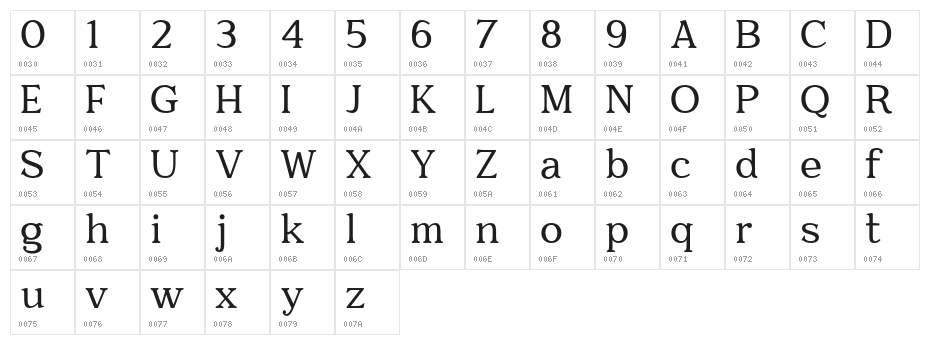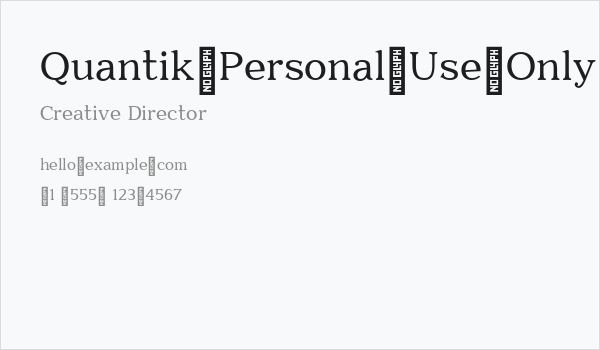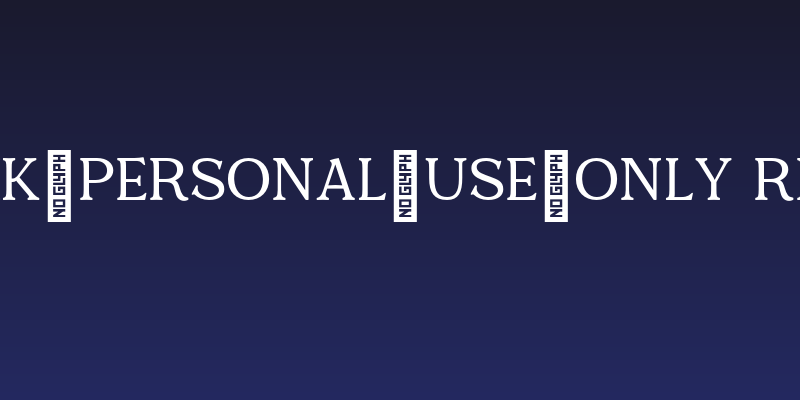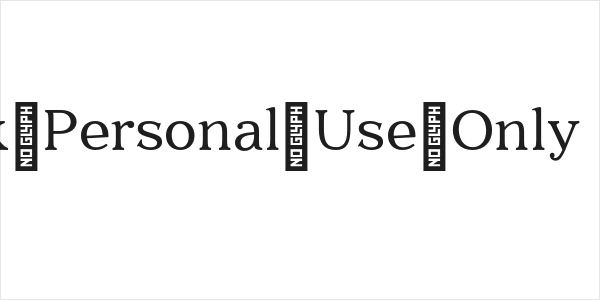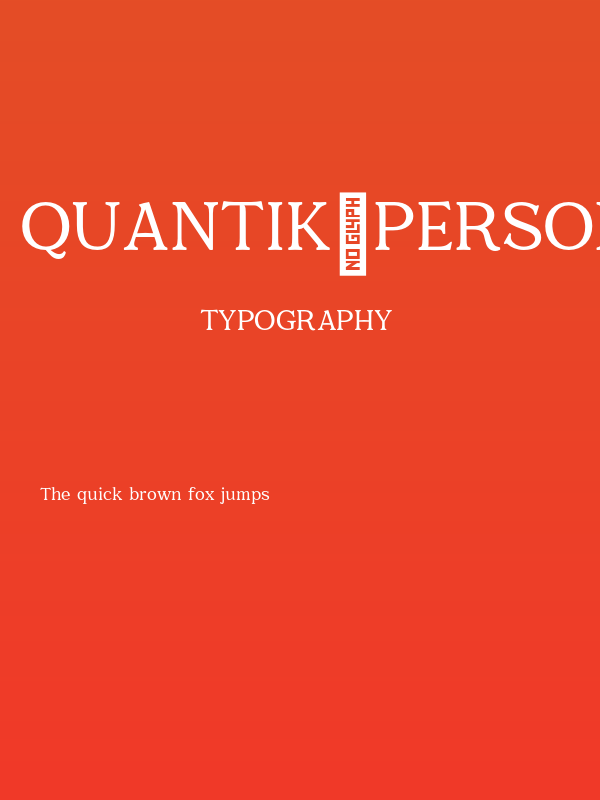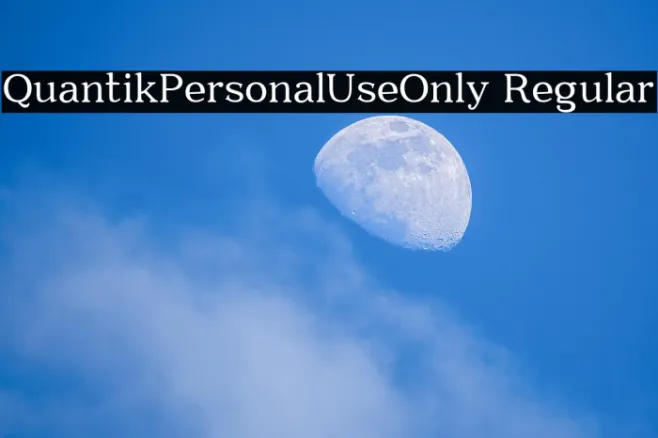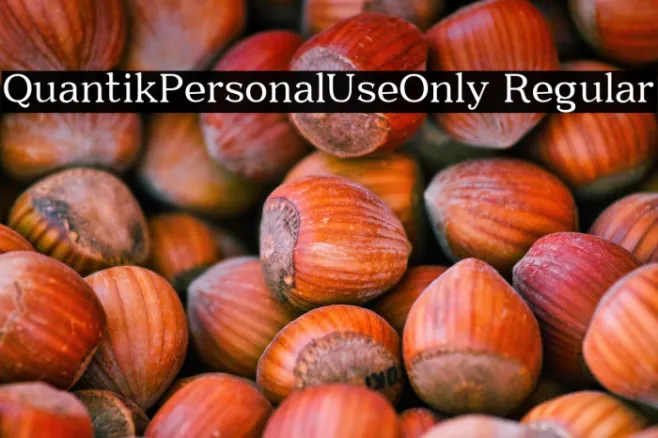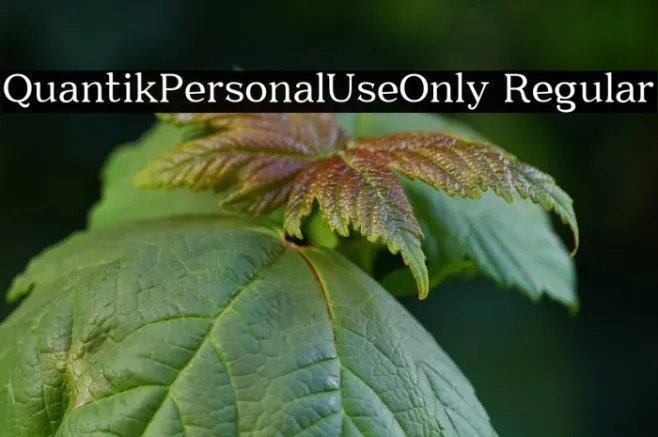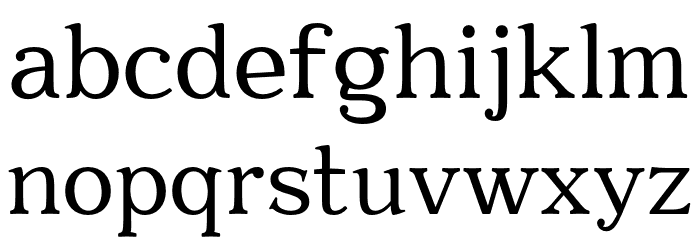
Quantik-Personal-Use-Only Regular Font
Quantik-Personal-Use-Only Regular Description
This font features a classic serif style with a modern twist. The characters are well-defined with a moderate stroke contrast, giving it a sophisticated yet approachable appearance. The uppercase letters are bold and commanding, while the lowercase letters maintain a balanced and harmonious flow. The numerals are clear and easy to read, making them suitable for both text and display purposes. The overall design is versatile, suitable for a wide range of applications from editorial design to branding. The font's structure is robust, ensuring legibility across various sizes and mediums.
| Proposed Projects | Ideal for editorial design, branding, book covers, and formal invitations. |